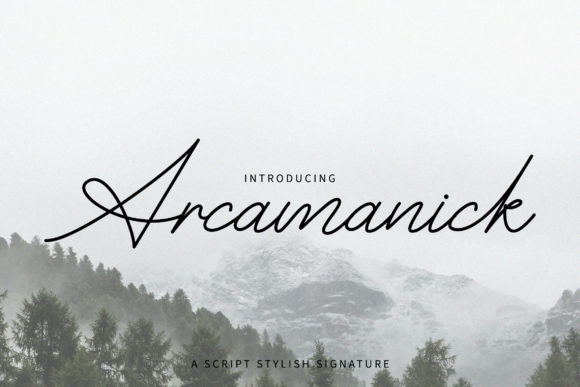
The Quest for the Perfect Font: Discovering Arcamanick
Ah, the eternal struggle of finding the perfect font for a design project! I recall working on a wedding invitation suite, determined to create something truly special. My client wanted a font that exuded elegance, yet had a playful touch. As I scrolled through font after font, I couldn’t shake the feeling that something was missing. That’s when I stumbled upon Arcamanick – a lovely handwritten font that has since become a staple in my design toolkit.
An Honest Review of Arcamanick
• ✨ **Natural & Stylish Flow**: Arcamanick’s handwritten charm is undeniable, making it perfect for projects that require a personal touch.
• ✅ **Versatility**: This font shines in various design applications, from branding and logos to social media posts and product packaging.
• 💫 **Elegant yet Playful**: Arcamanick strikes the perfect balance between sophistication and whimsy, making it ideal for wedding designs, invitations, and more.
While Arcamanick is an exceptional font, there are a few minor considerations to keep in mind:
• ⚠️ **Limited Character Set**: As a handwritten font, Arcamanick’s character set might not be as extensive as some other fonts. However, it still covers all the essential characters and glyphs.
• 🤔 **Occasional Kerning Issues**: As with any font, you may encounter occasional kerning issues, especially when using all-caps or mixing font sizes. A quick adjustment should resolve this.
The Story Behind Arcamanick
Arcamanick was crafted with love and care by a talented type designer who aimed to create a font that would bring a touch of warmth and personality to any design project. Inspired by the beauty of handwritten scripts, Arcamanick was born to help designers and crafters add a unique, human touch to their creations.
Q: What type of projects is Arcamanick best suited for?
A: Arcamanick is perfect for branding projects, logos, wedding designs, social media posts, advertisements, product packaging, product designs, labels, photography, watermarks, invitations, stationery, and any projects that require a personalized touch.
Q: Does Arcamanick support OpenType features?
A: Yes, Arcamanick supports OpenType features, including glyphs and stylistic alternates. You can access these features in compatible design software, such as Adobe Photoshop/Illustrator.